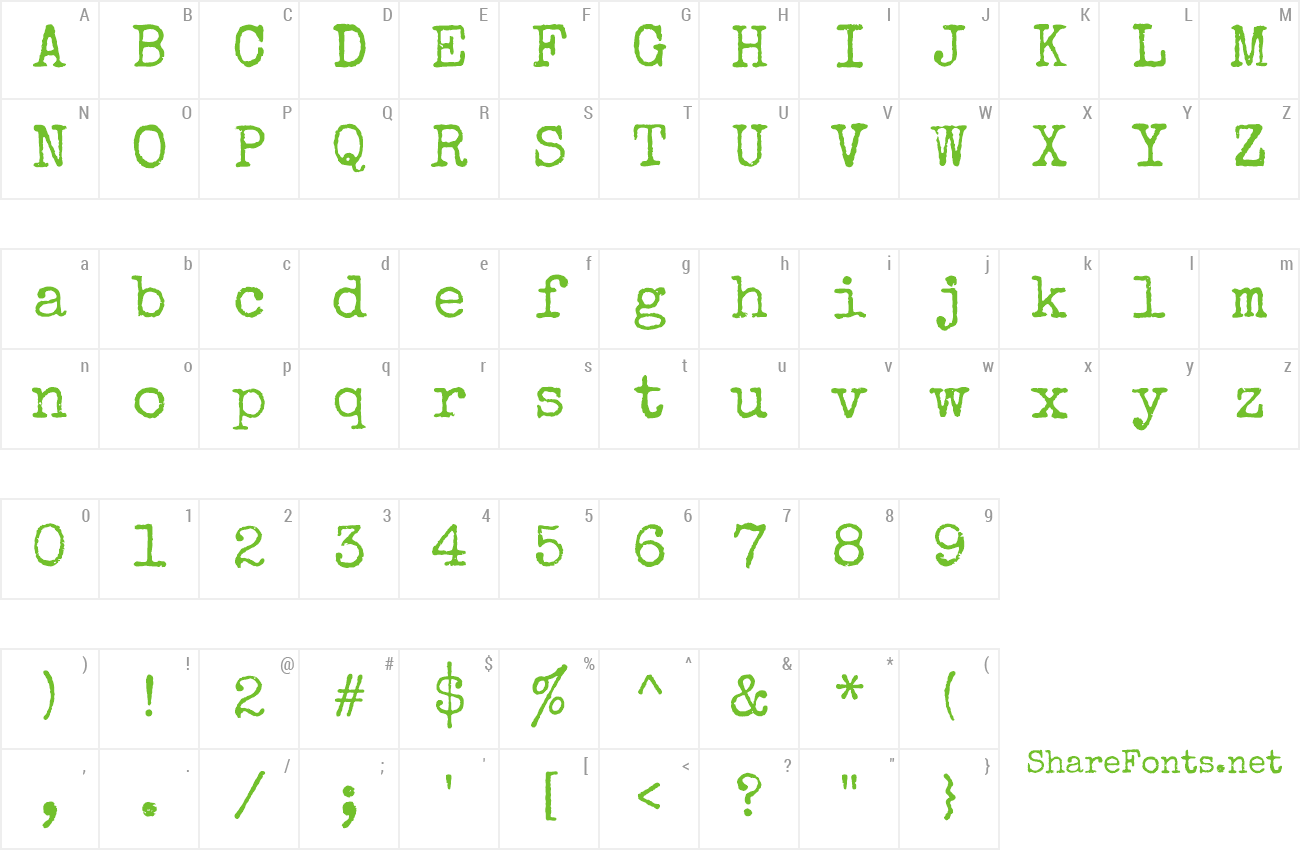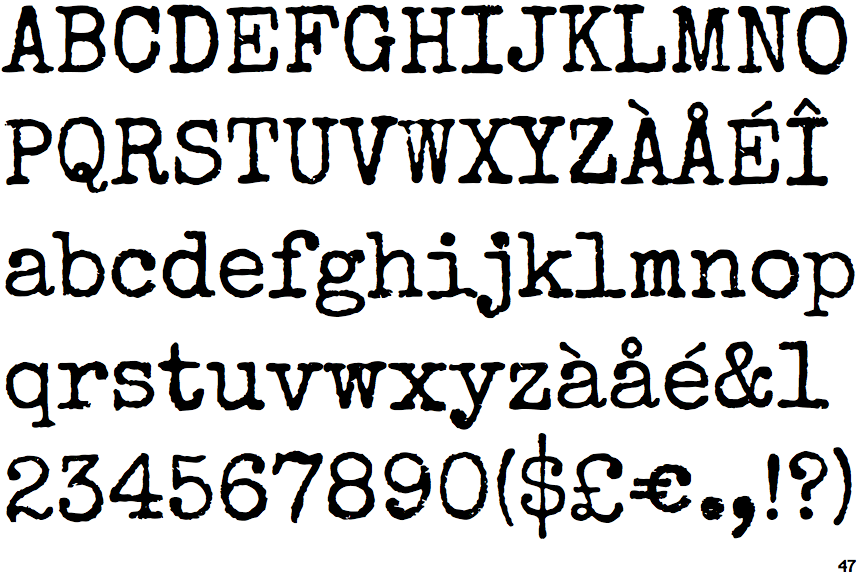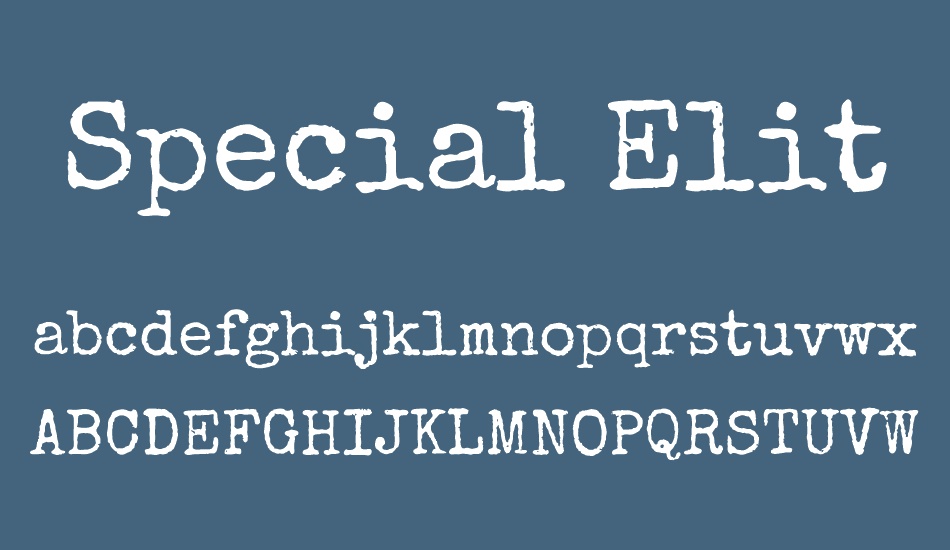
Font Special Elite
Font Special Elite - Web free download of special elite font. Released in 2011 by astigmatic one eye typographic institute and licensed for. Special elite mimics the smith corona special elite type number nr6 and remington noiseless.
Released in 2011 by astigmatic one eye typographic institute and licensed for. Web free download of special elite font. Special elite mimics the smith corona special elite type number nr6 and remington noiseless.
Released in 2011 by astigmatic one eye typographic institute and licensed for. Special elite mimics the smith corona special elite type number nr6 and remington noiseless. Web free download of special elite font.
Special elite mimics the smith corona special elite type number nr6 and remington noiseless. Released in 2011 by astigmatic one eye typographic institute and licensed for. Web free download of special elite font.
Special elite mimics the smith corona special elite type number nr6 and remington noiseless. Web free download of special elite font. Released in 2011 by astigmatic one eye typographic institute and licensed for.
Released in 2011 by astigmatic one eye typographic institute and licensed for. Web free download of special elite font. Special elite mimics the smith corona special elite type number nr6 and remington noiseless.
Special elite mimics the smith corona special elite type number nr6 and remington noiseless. Released in 2011 by astigmatic one eye typographic institute and licensed for. Web free download of special elite font.
Web free download of special elite font. Special elite mimics the smith corona special elite type number nr6 and remington noiseless. Released in 2011 by astigmatic one eye typographic institute and licensed for.
Special elite mimics the smith corona special elite type number nr6 and remington noiseless. Released in 2011 by astigmatic one eye typographic institute and licensed for. Web free download of special elite font.
Released in 2011 by astigmatic one eye typographic institute and licensed for. Special elite mimics the smith corona special elite type number nr6 and remington noiseless. Web free download of special elite font.
Released in 2011 by astigmatic one eye typographic institute and licensed for. Web free download of special elite font. Special elite mimics the smith corona special elite type number nr6 and remington noiseless.
Released In 2011 By Astigmatic One Eye Typographic Institute And Licensed For.
Special elite mimics the smith corona special elite type number nr6 and remington noiseless. Web free download of special elite font.